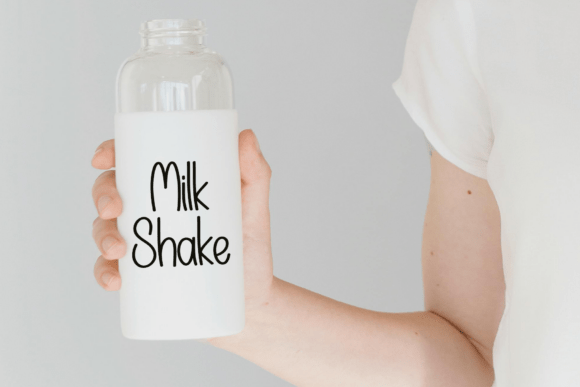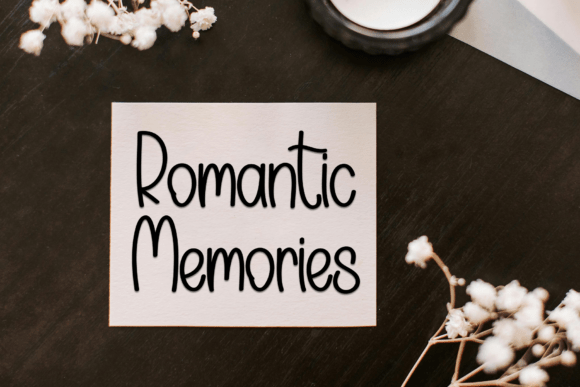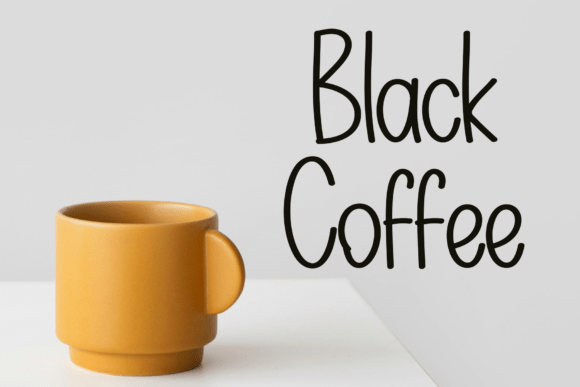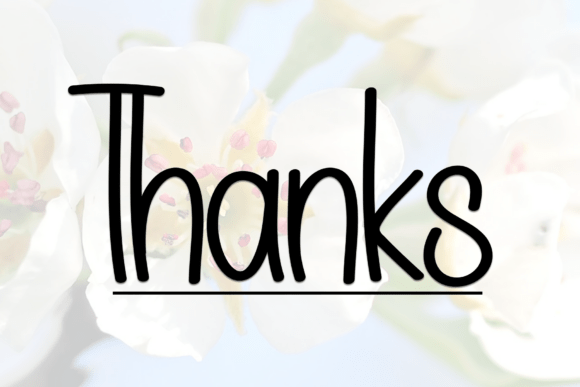
Introducing Graceful Font: The Perfect Blend of Clarity and Relaxed Elegance
In the world of typography, finding the right font can make all the difference in the success of a design project. Whether you’re a seasoned designer or a crafty DIY enthusiast, the font you choose can elevate your work from ordinary to extraordinary. That’s where Graceful Font comes in – a neat and casual display font that seamlessly blends clarity with a relaxed, approachable vibe.
Clean Lines, Friendly Letterforms
Graceful Font boasts clean lines and friendly letterforms that make it perfect for a wide range of design applications, from headlines and posters to packaging and branding. Its modern yet laid-back feel makes it an ideal choice for designers and crafters looking to add a touch of personality to their work without overwhelming the message.
A Balanced Structure with Playful Energy
One of the standout features of Graceful Font is its balanced structure, which brings a sense of stability and harmony to any design. At the same time, its playful energy injects a dose of fun and creativity, making it perfect for designs that need to stand out from the crowd. Whether you’re working on a logo, brochure, or social media graphic, Graceful Font is sure to bring a smile to your audience’s face.
Ideal for Designs that Call for Style and Readability
In today’s fast-paced digital landscape, designers and crafters need fonts that are both stylish and readable. Graceful Font ticks both boxes, making it an excellent choice for designs that require a high level of legibility. Its clear and concise letterforms ensure that your message gets across quickly and easily, while its elegant lines and curves add a touch of sophistication.
Graceful Font is incredibly versatile, making it suitable for a wide range of design applications, including:
- Headlines and titles: Add a touch of elegance and sophistication to your headlines and titles with Graceful Font.
- Posters and flyers: Create eye-catching posters and flyers that grab attention and convey your message with clarity.
- Packaging: Elevate your packaging design with a font that’s both modern and approachable.
- Branding: Develop a strong brand identity with Graceful Font, which exudes a sense of relaxed elegance.
Why Choose Graceful Font?
So why choose Graceful Font over other fonts on the market? Here are just a few reasons:
- Unique blend of clarity and elegance: Graceful Font offers a rare combination of clarity and elegance, making it perfect for designs that require both style and readability.
- Highly versatile: Whether you’re working on a logo, brochure, or social media graphic, Graceful Font is suitable for a wide range of design applications.
- Easy to read: Its clear and concise letterforms ensure that your message gets across quickly and easily.
In conclusion, Graceful Font is an exceptional choice for designers and crafters looking for a font that blends clarity with a relaxed, approachable vibe. Its clean lines, friendly letterforms, and balanced structure make it perfect for a wide range of design applications, from headlines and posters to packaging and branding. With its unique blend of style and readability, Graceful Font is sure to elevate your designs and bring a touch of elegance to your work.